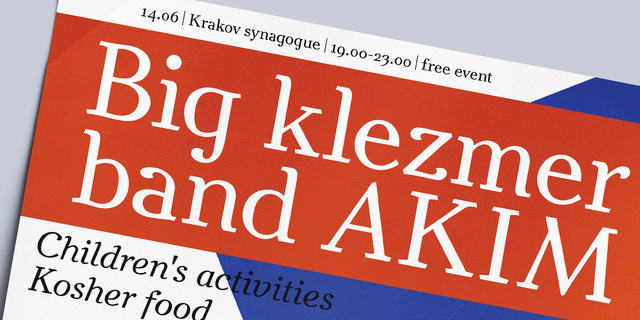
About BachenasThe typeface was designed for Polygraphmash type design bureau in 1963 by Lithuanian book and type designer Vitoldas Bachenas. It’s a low-contrast serif typeface with some unusual elements. Designed for text and display matters. The digital version was developed for ParaType in 2003 by Lyubov Kuznetsova.
Associations for font family BachenasTypeface personality and character:
playful, musical, voiced, elegant, refined, original, fresh, delicious, artistic, chic, hospitable, cultured, beautiful, catchy, pleasant, orderly, European, silver, humanitarian, creative, feminine, windy, mannered, cutie, polite
dessert, food, ballet, theater, exhibition, art, poetry, lyrics, music, cafe, jam, literature, prose, confectionery, sweets Typeface associated with age: